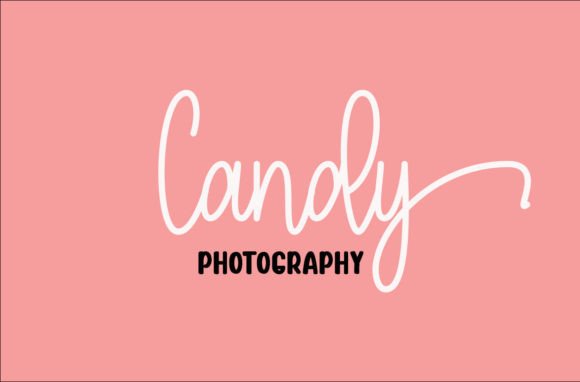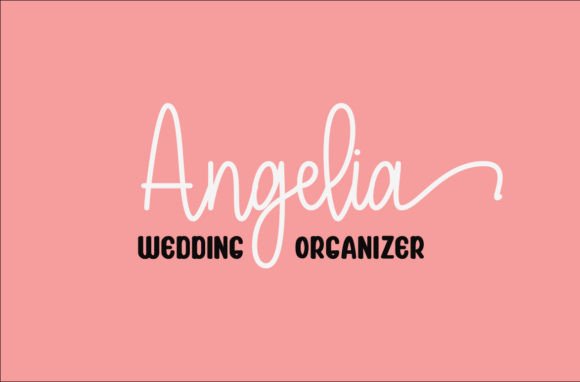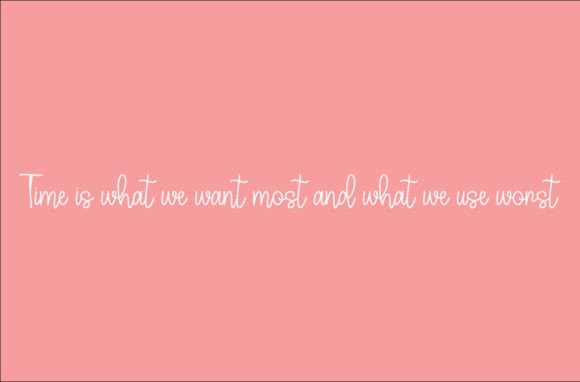
About Sagitarius Font
“Sagitarius” stands out as an enchanting handwritten font that adds a touch of magic to your designs. This versatile typeface is crafted to be applicable in a wide spectrum of creative projects, spanning from greeting cards to headlines. Notably, “Sagitarius” is PUA encoded, ensuring convenient access to all the glyphs and swashes with ease, providing you with a rich set of design options.
The enchanting quality of “Sagitarius” is evident in its handwritten charm. Each stroke is crafted with care, contributing to the overall aesthetic appeal of the font. This makes it particularly suitable for projects where a touch of whimsy and personalization is desired.
The versatility of “Sagitarius” opens up a range of creative possibilities. From the elegance of greeting cards to the impactful presence in headlines, this font adapts seamlessly to different design contexts. Its enchanting nature makes it suitable for projects that aim to captivate and engage the audience.
The inclusion of PUA encoding is a valuable feature, enhancing the usability of the font. This encoding allows for easy access to a variety of glyphs and swashes, empowering you to explore and incorporate intricate design elements effortlessly. Whether you’re working on branding, invitations, or any creative project, “Sagitarius” ensures a smooth and enjoyable design process.
In summary, “Sagitarius” is more than just a font; it’s an enchanting design tool that brings a magical quality to your creative projects. With its versatility and PUA encoding, this font becomes a valuable asset in your toolkit, allowing you to infuse charm and sophistication into a wide range of design applications.